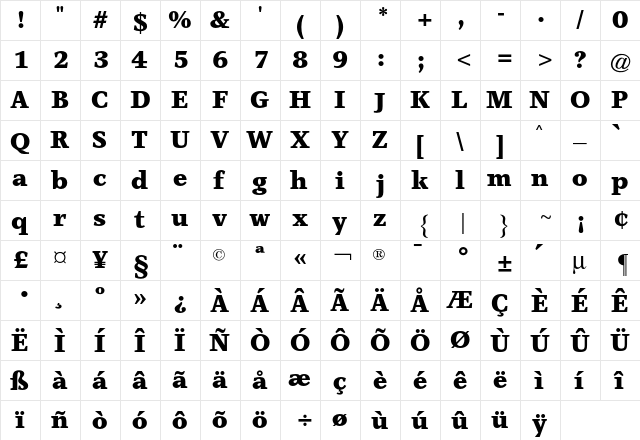
Claridge CG Black Regular
Design Context for Claridge CG Black Typeface
Claridge CG Black offers clean, dependable letterforms without strong stylistic allegiance, making it a practical choice for designers who need flexibility.
Pro Tip: Use Claridge CG Black in both headline and body roles to test its range before committing to a single application.